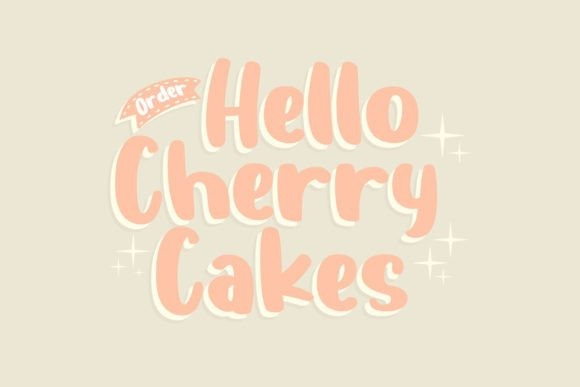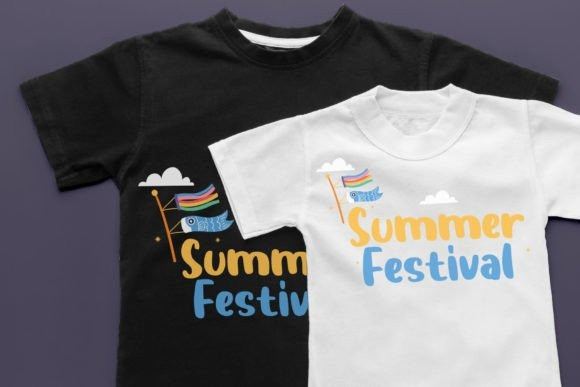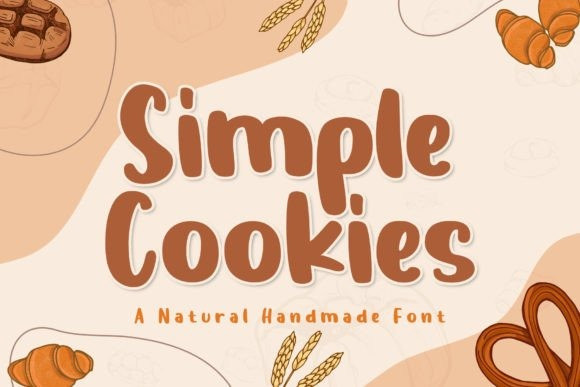
Simple Cookies Font
Simple Cookies Font, a simple and natural handmade font that showcases unique and playful shapes. This font is great for kids and cartoon design projects that require a bit of whimsy and imagination. You can use Simple Cookies for logos, branding, posters, flyers, invitations, and more.
Simple Cookies is easy to work with and versatile, giving your design a fresh and fun look. Download Simple Cookies today and discover its charm and personality.